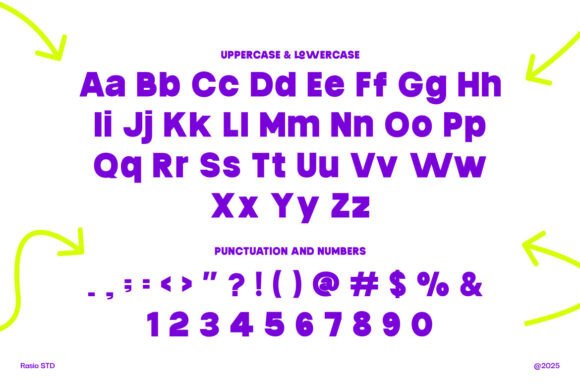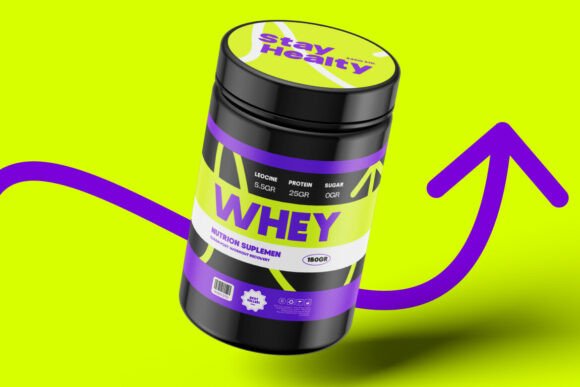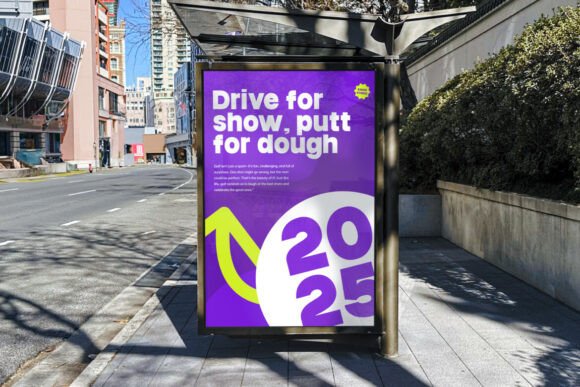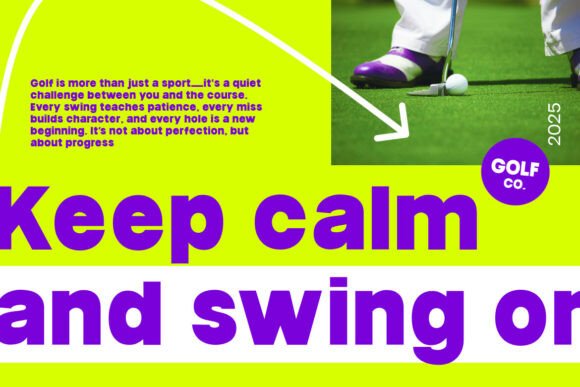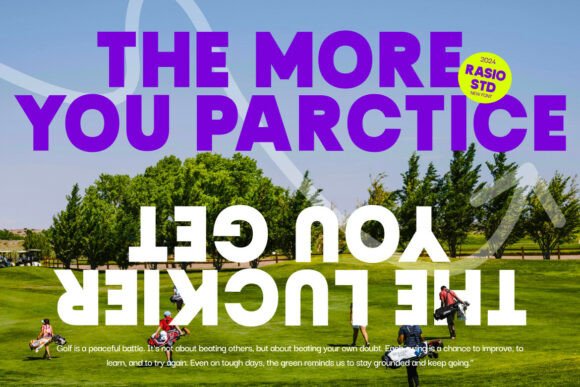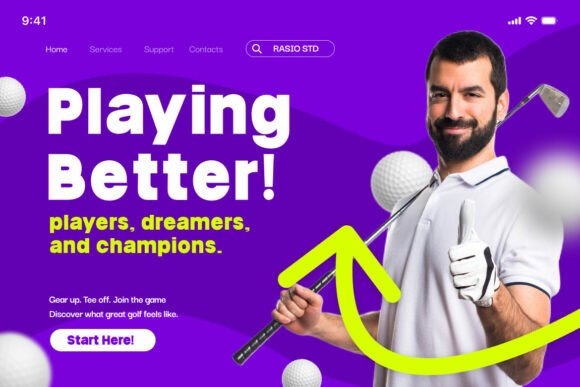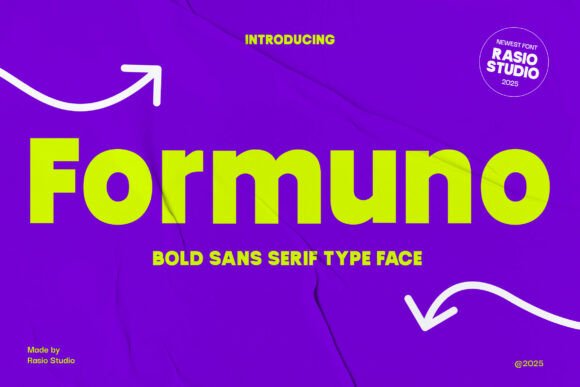
Introducing Formuno Font: The Ultimate Bold Sans Serif for High-Impact Branding
In the world of typography, a font can make or break the visual identity of a brand. For designers and crafters looking for a bold and eye-catching typeface, Formuno Font is an excellent choice. Designed to deliver strong visual impact and high-energy branding, Formuno is a bold sans serif display font that ticks all the right boxes.
Key Features of Formuno Font
Formuno Font boasts a range of features that make it perfect for high-impact branding. Built with thick strokes, smooth curves, and confident proportions, this font delivers maximum readability while maintaining a modern and sporty character. Its solid geometric construction and compact letterforms create a powerful presence in headlines, posters, and promotional layouts.
Ideal Applications for Formuno Font
Formuno Font is highly versatile and can be used in a variety of applications. Some of the most suitable uses for this font include:
- Sports Branding: Formuno’s bold and confident appearance makes it perfect for sports teams, leagues, and events.
- Active Lifestyle Campaigns: Whether it’s fitness, wellness, or outdoor activities, Formuno Font is ideal for promoting an active lifestyle.
- Esports Graphics: The font’s modern and sporty character makes it a great fit for esports branding, tournaments, and events.
- Event Posters: Formuno Font is perfect for creating eye-catching event posters that grab attention.
- Bold Social Media Content: Use Formuno Font to create bold and engaging social media content that stands out from the crowd.
- Streetwear Labels: The font’s strong and confident appearance makes it ideal for streetwear labels and fashion brands.
- Product Packaging: Formuno Font can add a bold and modern touch to product packaging.
- Advertising Materials: Whether it’s billboards, print ads, or digital ads, Formuno Font is perfect for creating high-impact advertising materials.
Why Choose Formuno Font?
So, why choose Formuno Font over other bold sans serif fonts? Here are a few reasons:
- High Readability: Formuno Font delivers maximum readability, even at large sizes.
- Modern and Sporty Character: The font’s modern and sporty character makes it perfect for brands that want to convey energy and confidence.
- Versatility: Formuno Font can be used in a wide range of applications, from sports branding to product packaging.
- Strong Visual Impact: The font’s bold and confident appearance makes it perfect for creating high-impact branding materials.
Tips for Using Formuno Font
Here are a few tips for using Formuno Font effectively:
- Use it for Headlines: Formuno Font is perfect for headlines, titles, and captions.
- Experiment with Colors: Try pairing Formuno Font with bold and bright colors to create a high-impact visual effect.
- Mix it with Other Fonts: Formuno Font can be paired with other fonts to create a unique and visually appealing typography.
In conclusion, Formuno Font is a bold sans serif display typeface that is perfect for designers and crafters looking for a high-impact font. With its thick strokes, smooth curves, and confident proportions, Formuno Font delivers maximum readability while maintaining a modern and sporty character. Its versatility and strong visual impact make it ideal for a wide range of applications, from sports branding to product packaging. Whether you’re looking to create bold social media content or eye-catching event posters, Formuno Font is an excellent choice.